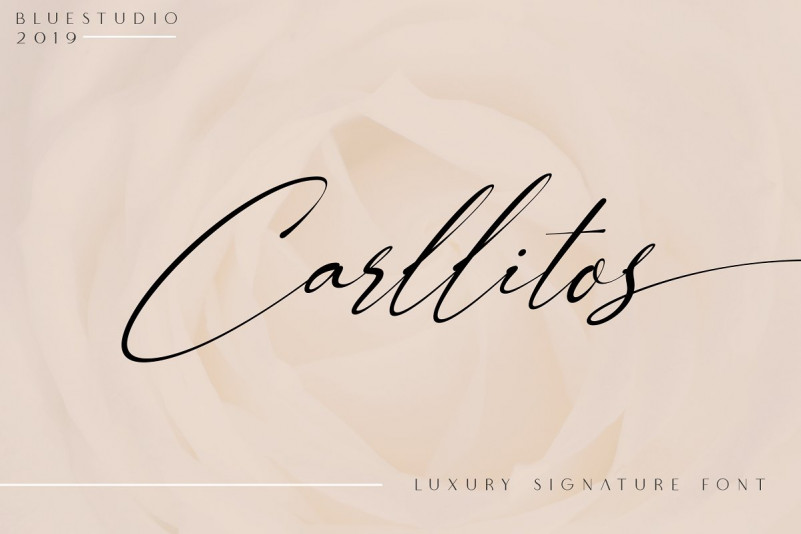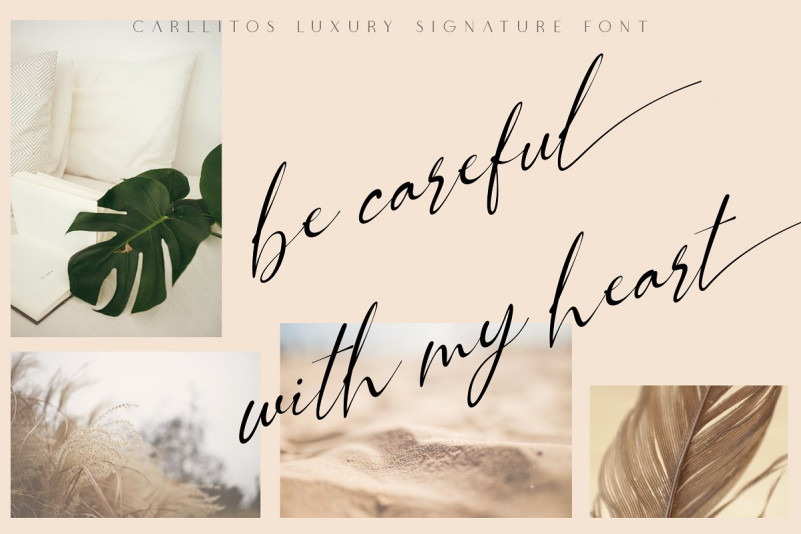
Carllitos Signature Font
Carllitos Signature Font – It’s a handwritten font, help you get your creative juices flowing! Flip through the previews above to get some creative inspiration and to see what you can make. It’s designed and shared by Bluestudio. It’s made to resemble hand scratches, so it looks like a natural style like your own hand scratches. Carllitos Signature offer beautiful typographic harmony for a variety of design projects, including watermark, logos,branding, wedding designs, social media posts, advertisements, product designs, magazines and others.